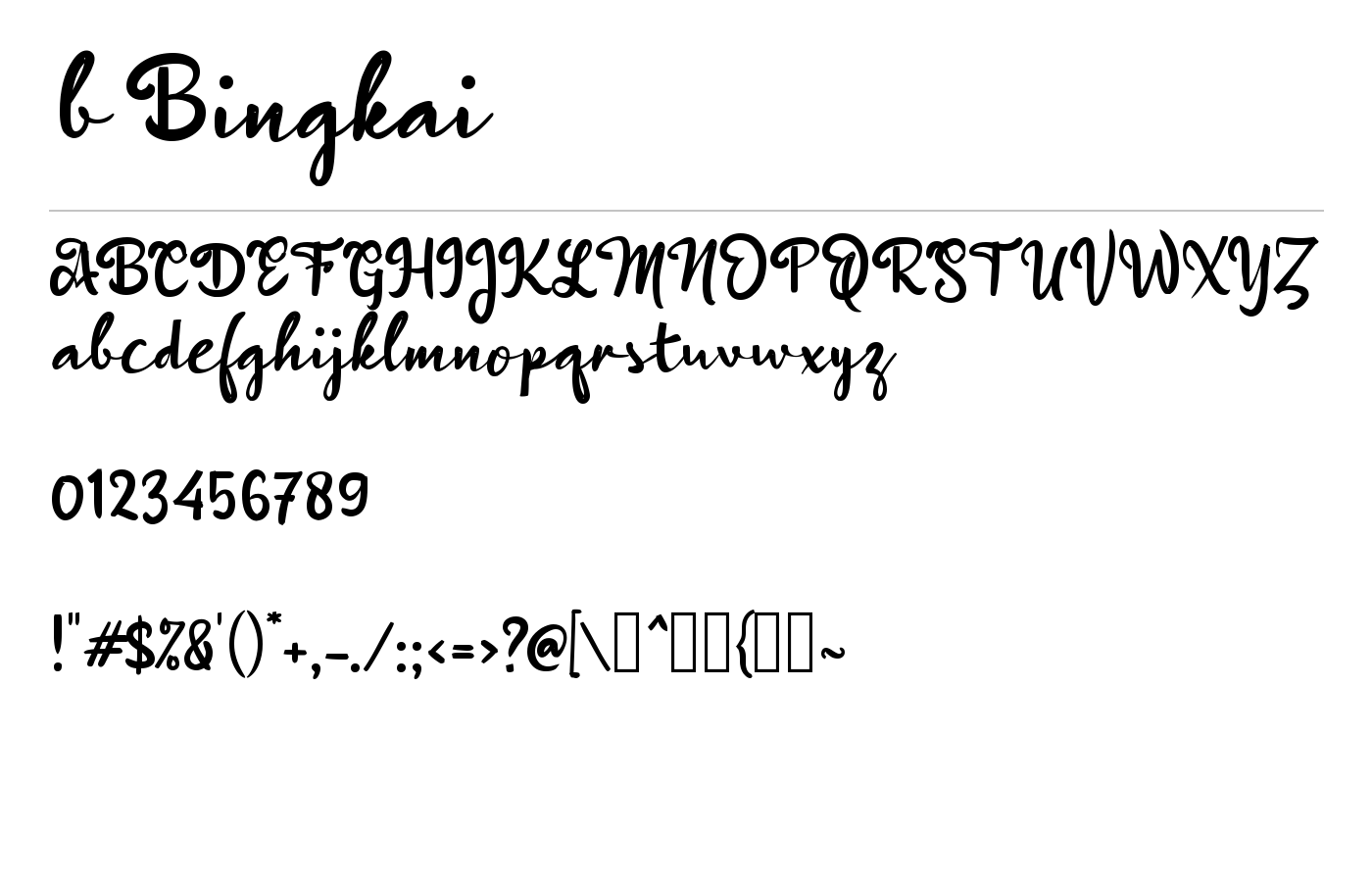
Bingkai is a charming script font with a lively, hand-drawn feel characterized by its smooth, flowing strokes and medium contrast. It offers a friendly yet elegant style with unique, playful letterforms that suit creative and casual designs. This font works great for invitations, branding, and headlines where a personal and approachable touch is desired.
b Bingkai Font
About b Bingkai Font